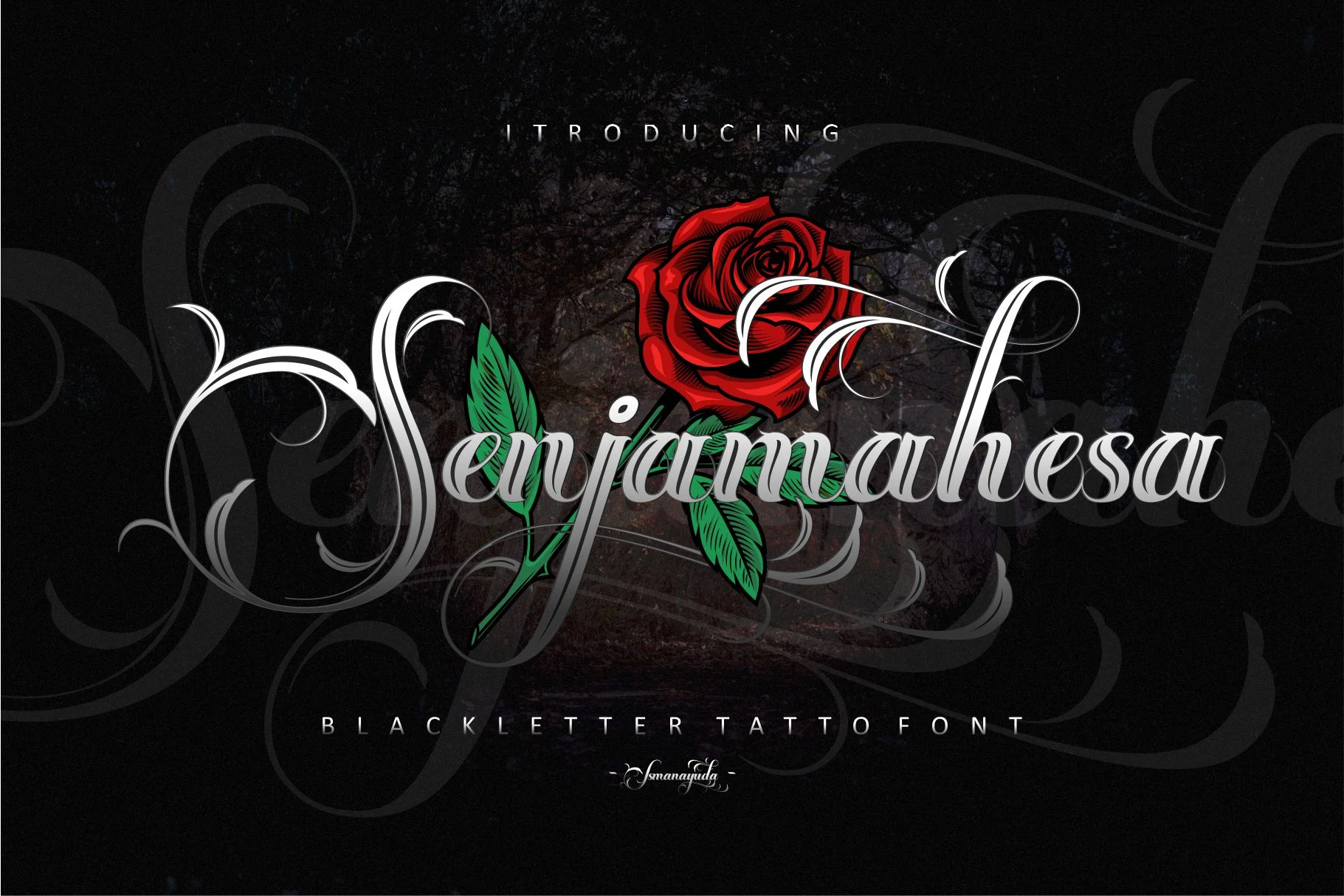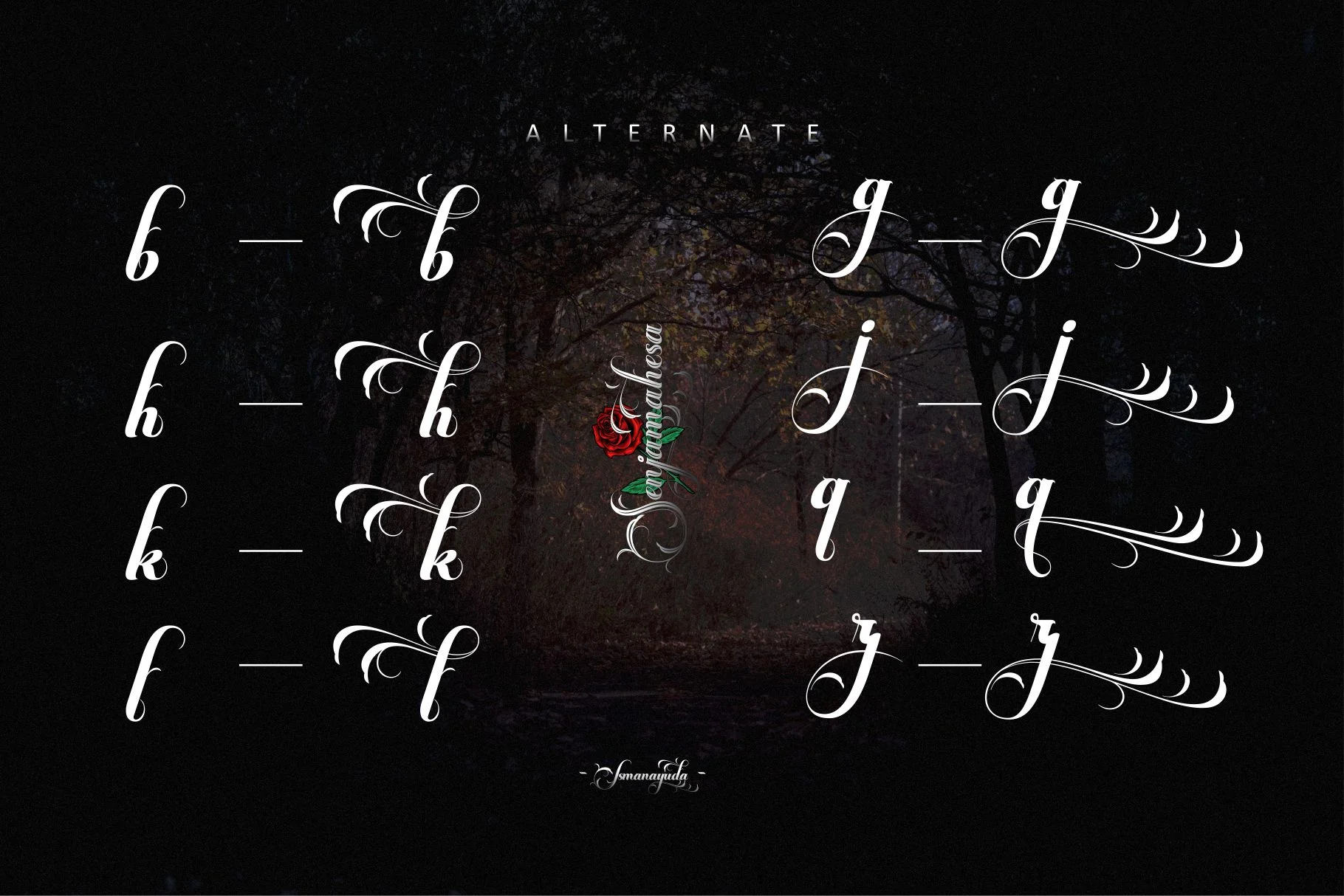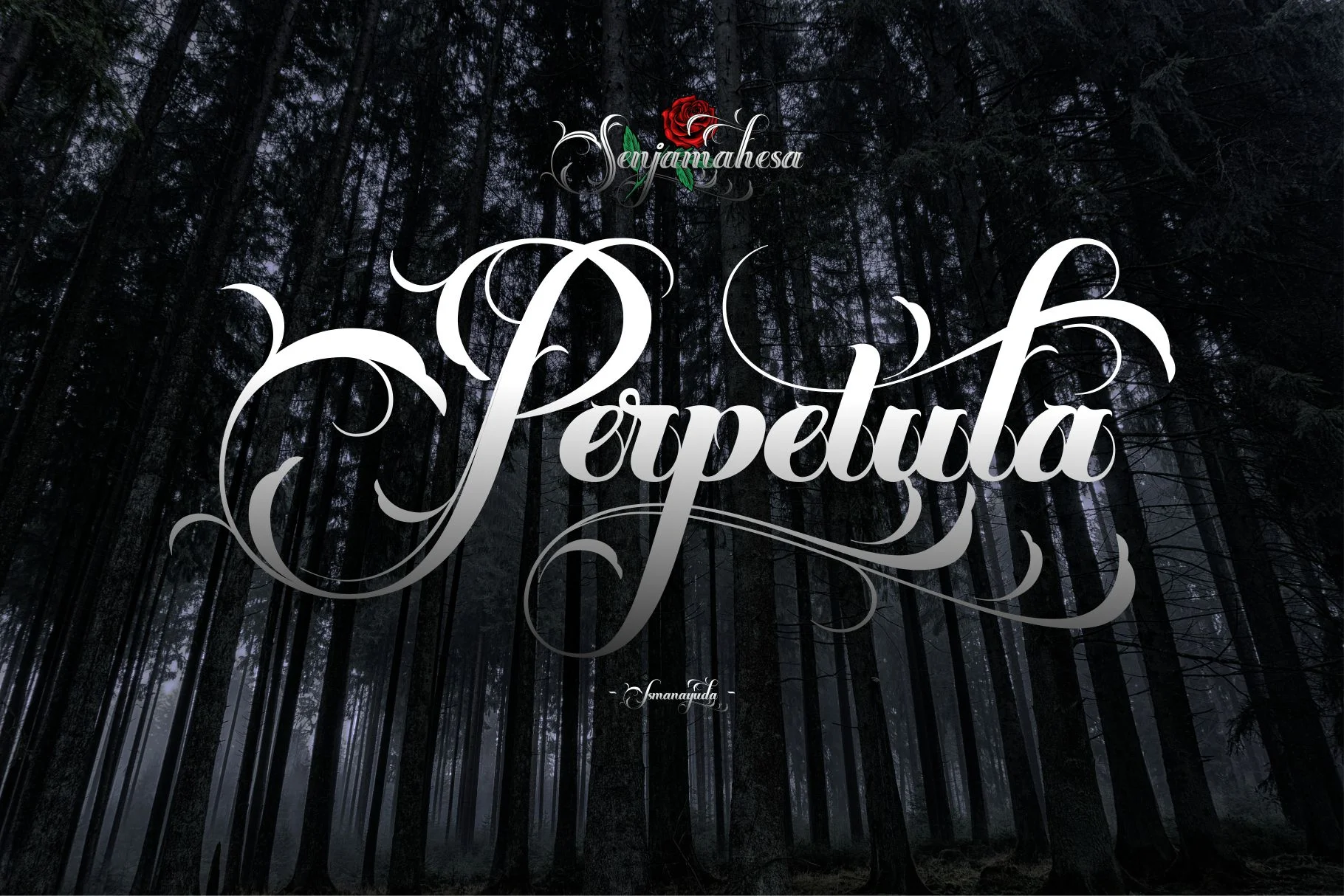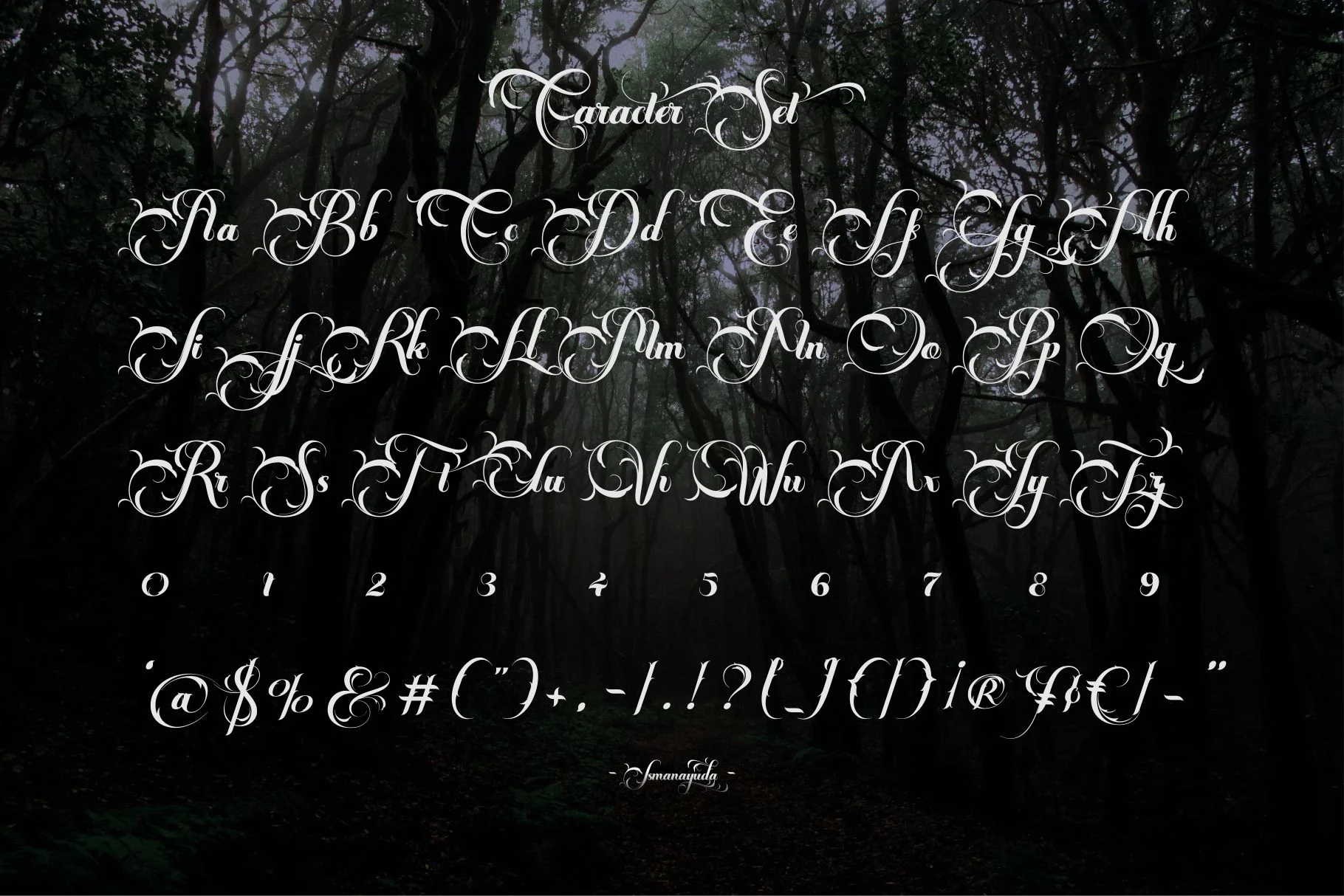
Senjamahesa
SENJAMAHESA is characterized as a bold, modern blackletter tattoo font. The designer states that the letterforms incorporate "strange shapes" inspired by plants and flowers, which is reflected in the intricate, organic flourishes and sweeping swashes that adorn the characters. Its high-impact, ornamental style makes it particularly suitable for tattoo studio branding, metal band logos, and vintage-inspired apparel mock-ups.